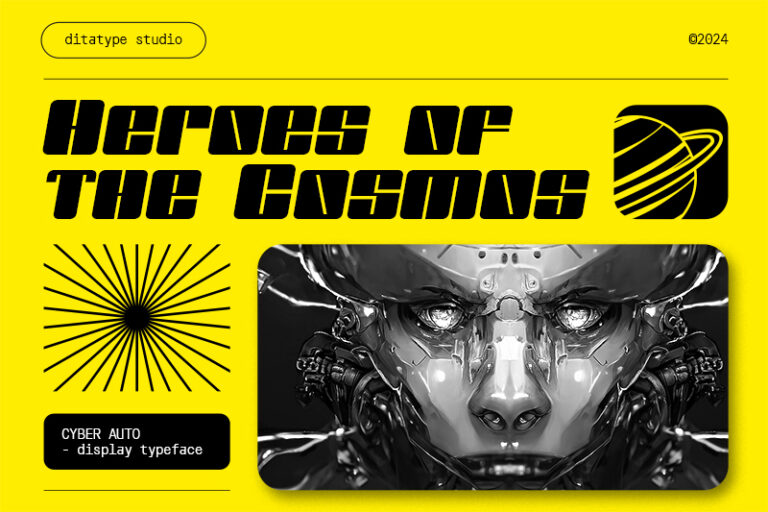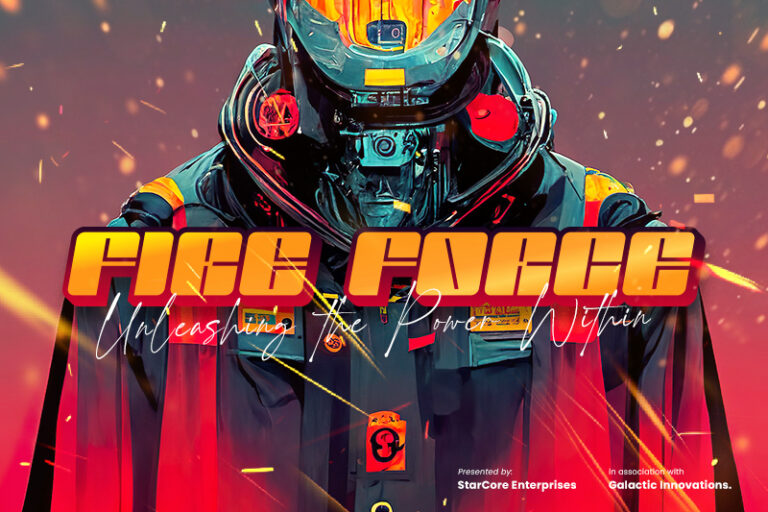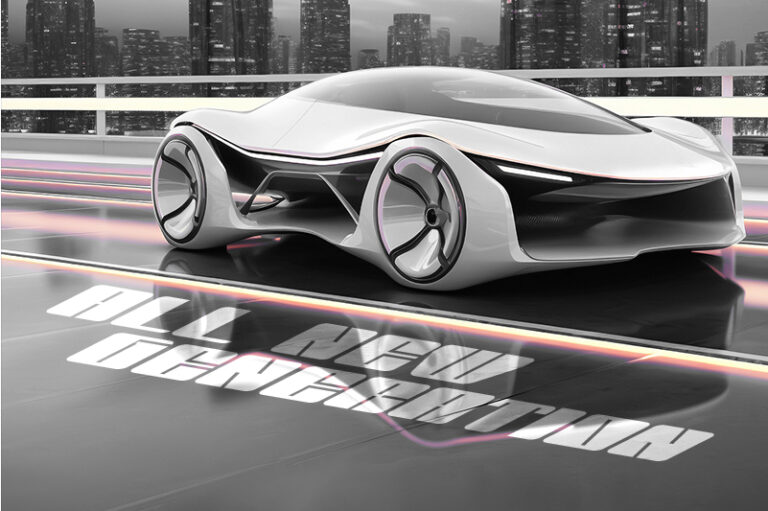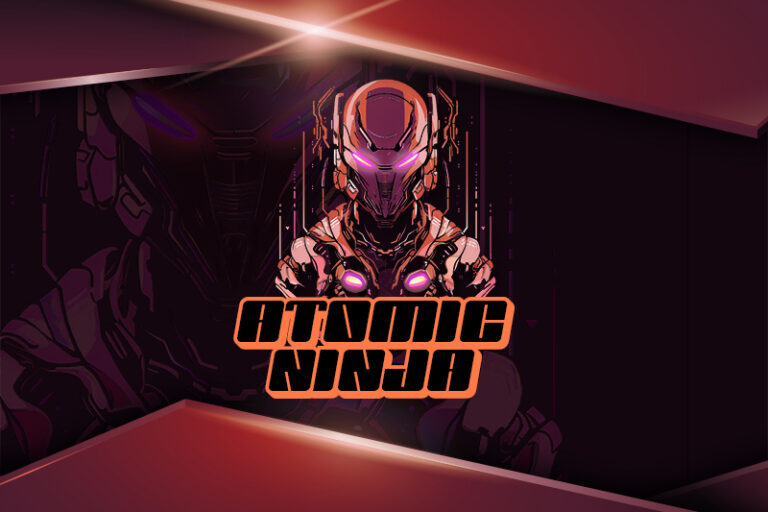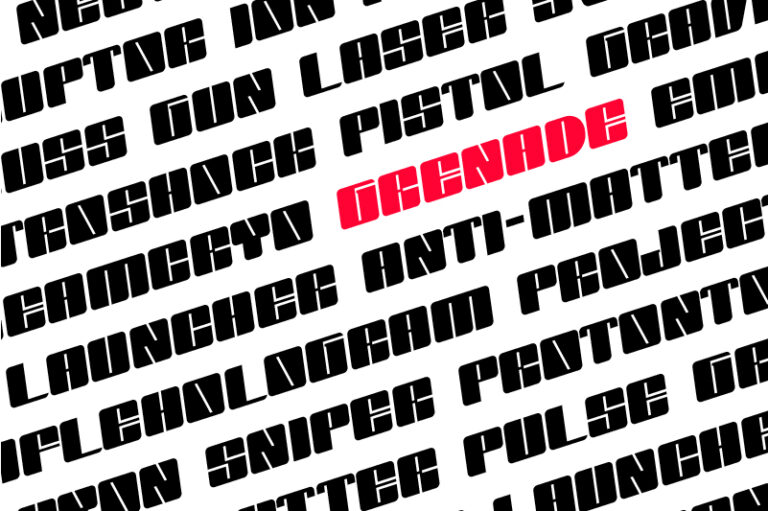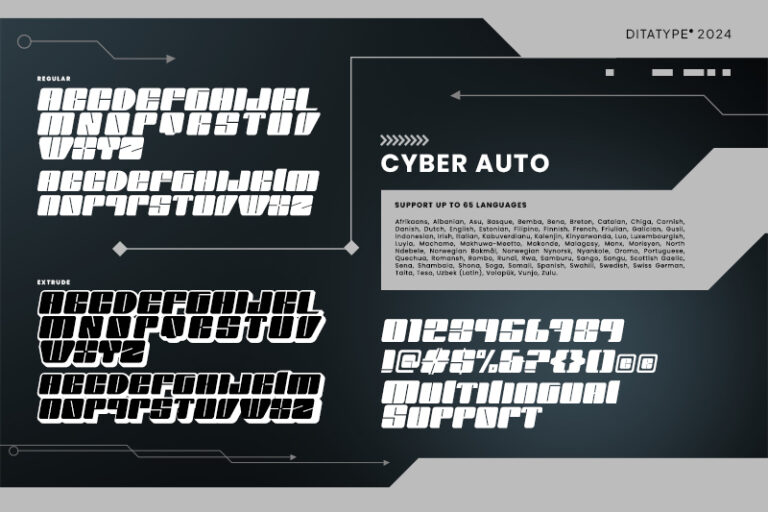
Cyber Auto-Display Font
Cyber Auto is a striking display font that embodies the essence of futuristic design. With its very thick weight and rounded shapes, Cyber Auto makes a bold and impactful statement. The low contrast enhances its modern and sleek appearance. Cyber Auto also brings a cutting-edge, forward-thinking vibe to any design. In addition, enjoy the features here.
Cyber Auto fits in logos, posters, flyers, branding materials, print media, editorial layouts, and many more designs. Find out more ways to use this font by taking a look at the font preview.